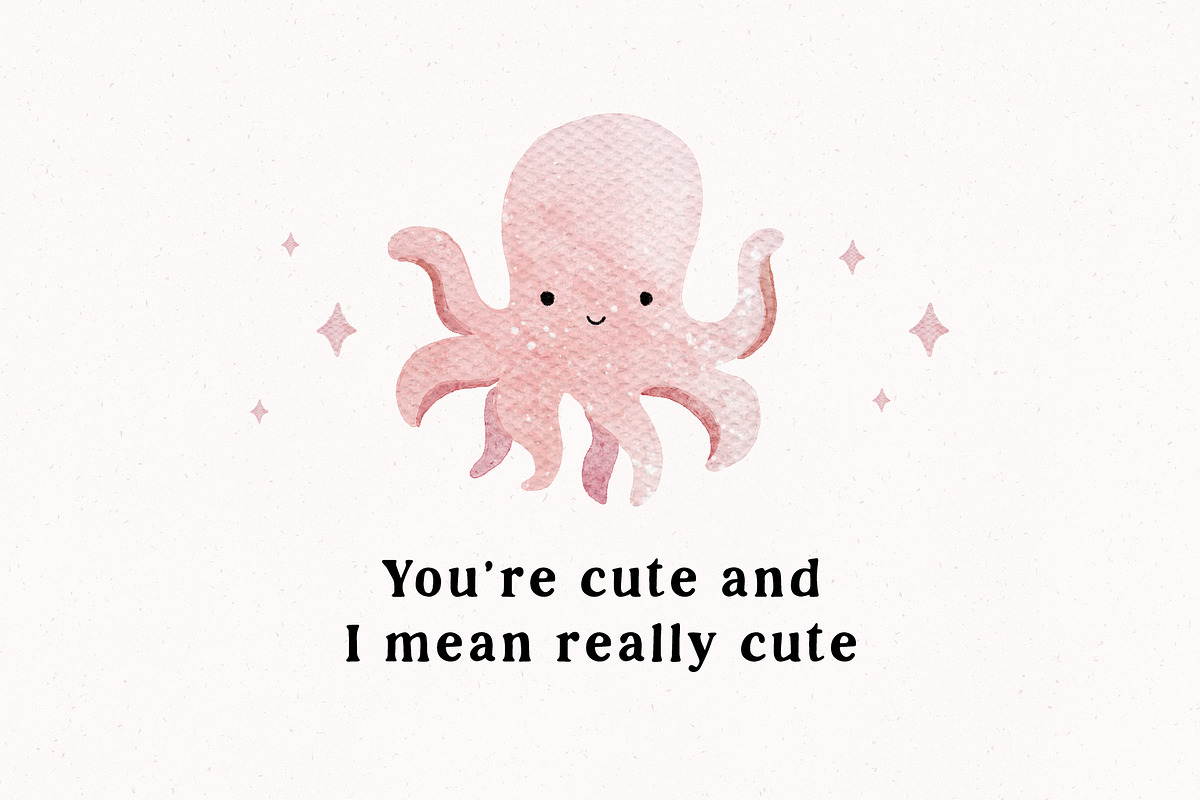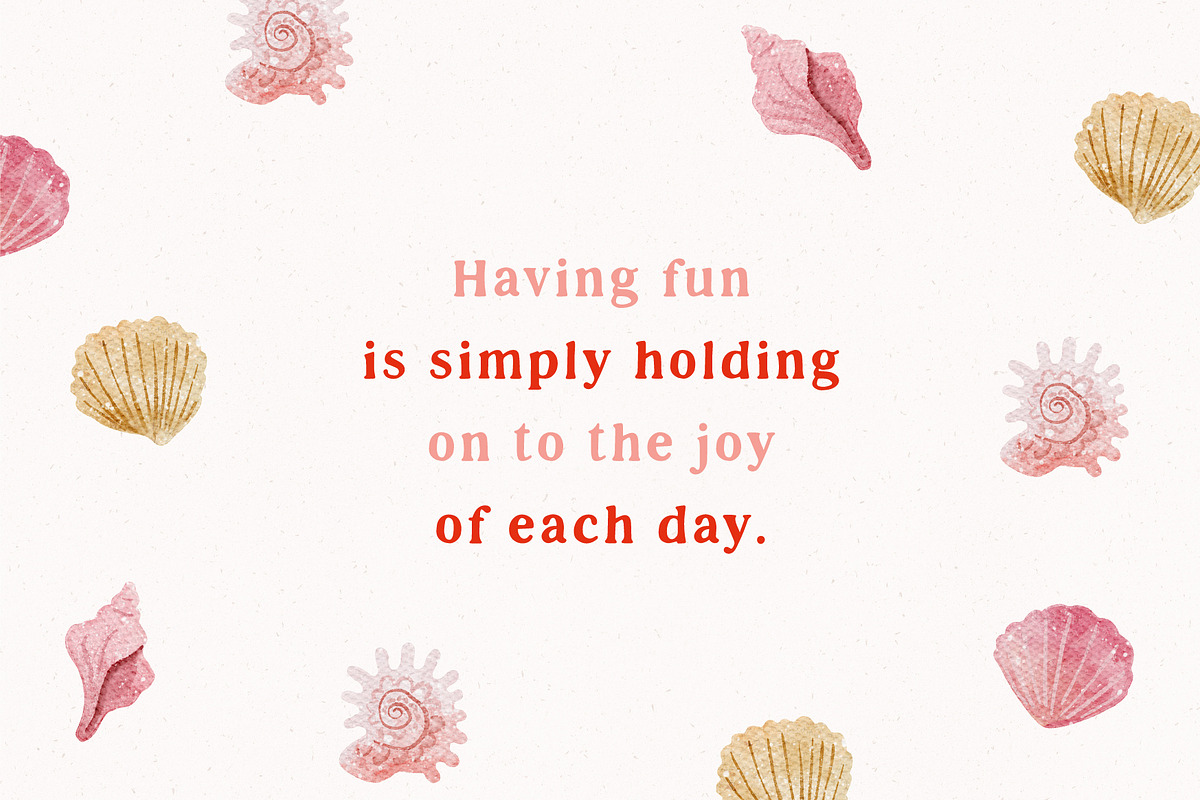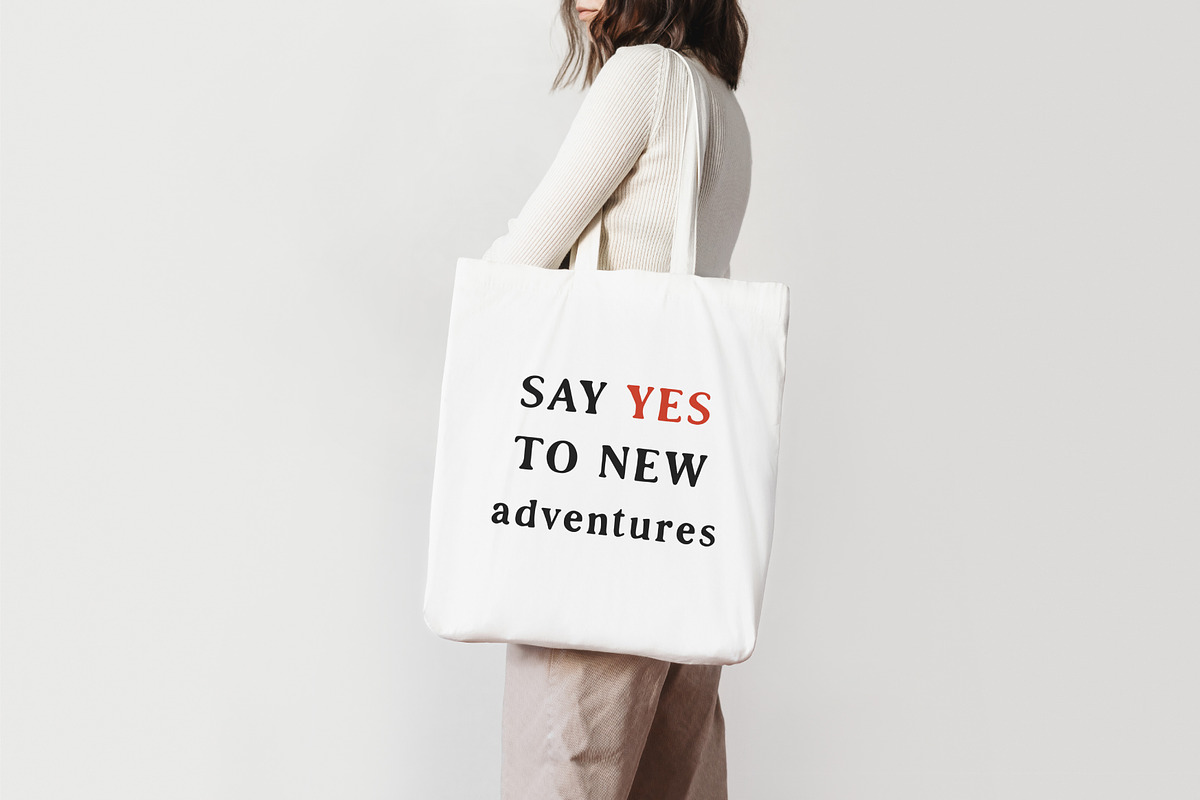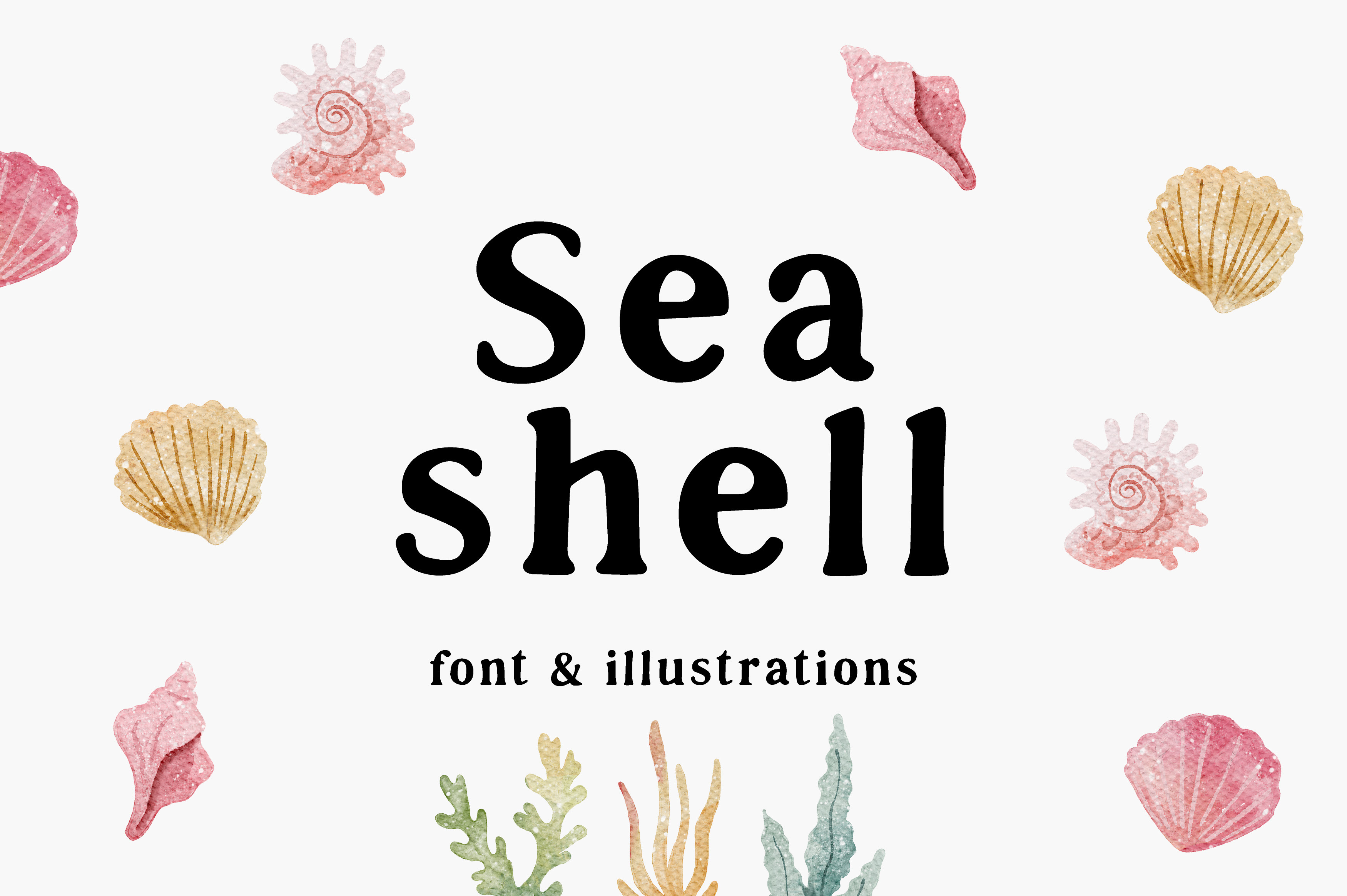
Sea shell | font & illustrations
Say hello to Sea shell, of display serif typeface with cute watercolor illustrations. Its hand drawn style provides an imperfect look, great to add a handmade touch to your projects. Use for logos, posters, blog posts, business cards, invitations, journals, clothing and more.